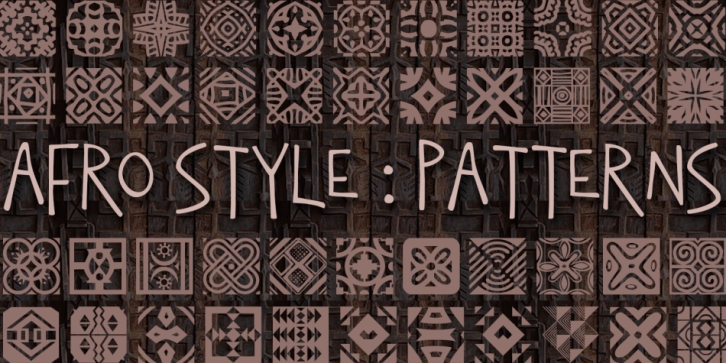
Designed by Anton Scholtz, African Pattern is a dingbat font family. This typeface has four styles and was published by Scholtz Fonts.
Four African patterns, two from central Africa, one from Mali, and one from the Zulu & Ndebele cultures of our province, KwaZulu-Natal, South Africa.
African Pattern 01·
African Pattern 02·
African Pattern 03 Zulu Ndebele·